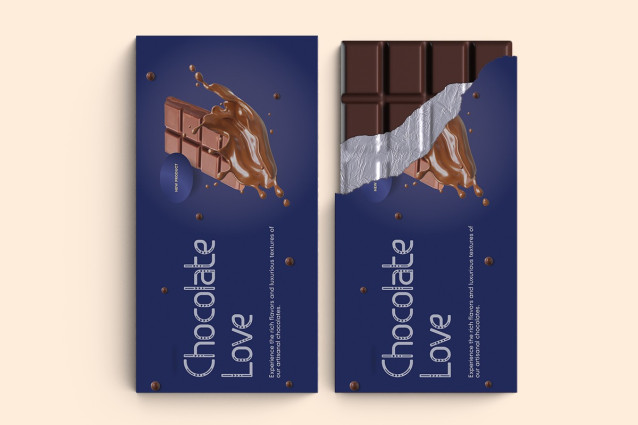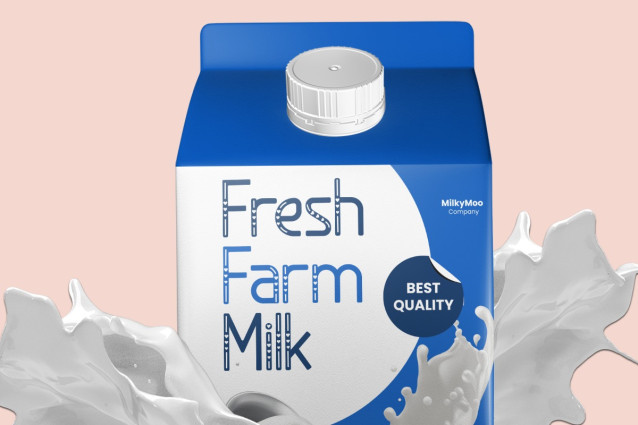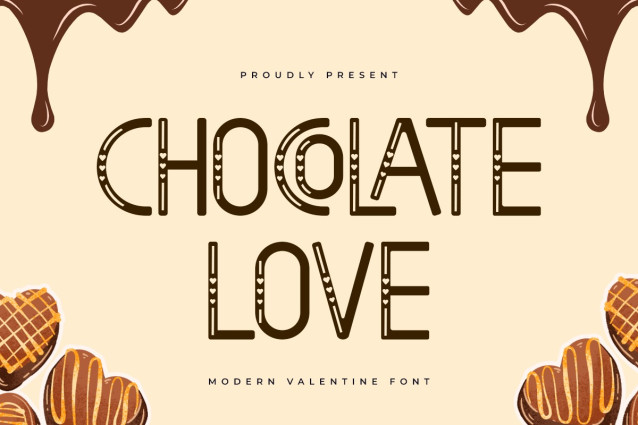
Chocolate Love Font
Chocolate Love Font A Modern Display Valentine Font Romantic Font, Chocolate Love A Modern Display Valentine Font is a blend of modern and beautiful font with an elegant and cute appearance. This font looks so beautiful with the addition of a love shape inside the letters. This font type is the best Valentine font for use on Valentine’s celebration supplies such as valentine invitations, greeting cards, and decorations. This font is also the best romantic font that can use on souvenirs and merchandise. Chocolate Love A Modern Display Valentine Font will give everyone who sees it a simple yet cute appeal. From the explanation of these characteristics and uses, the Chocolate Love A Modern Display Valentine Font is amazing. For other formal events, such as art exhibitions, you can use our Chocolate Love A Modern Display Valentine Font on exhibition titles, team shirts, signage, and other items. This font can be applied as a digital font or a print font. Combined with the matching theme, supporting images, and atmosphere, the beauty of the Chocolate Love A Modern Display Valentine Font will shine like sunlight illuminating a room. Our Display & Decorative font collection is used as Figma Fonts, Canva Fonts, Freepik Fonts, and Adobe Fonts. They also work as Windows Fonts and Apple Fonts. For your social media needs, you can use and install fonts in our Script & Signature font collection to use as Instagram Fonts, Facebook Fonts, and Twitter Fonts.